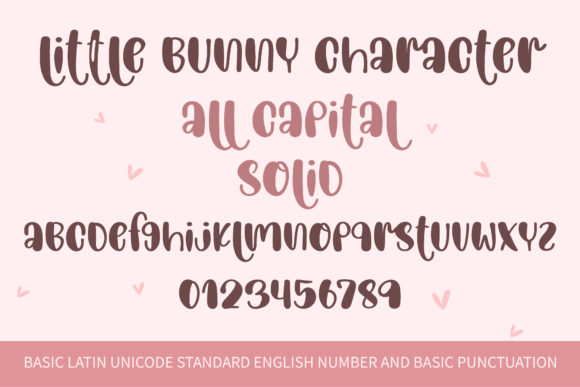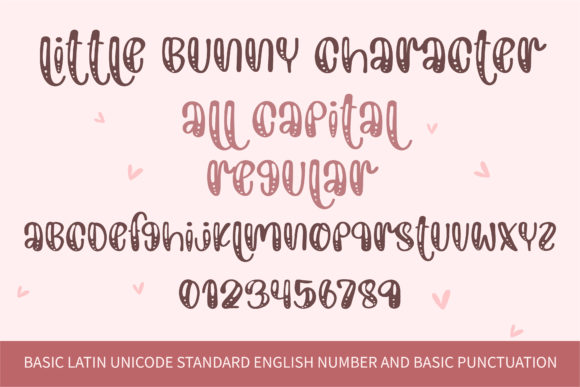
Little Bunny Font
db-ku.com - Script & Handwritten -- Little Bunny is a cute and whimsical handwritten font. Its natural and unique style makes it incredibly fitting to a large pool of designs. Masterfully designed to become a true favorite, this font has the potential to bring each of your creative ideas to the highest level!